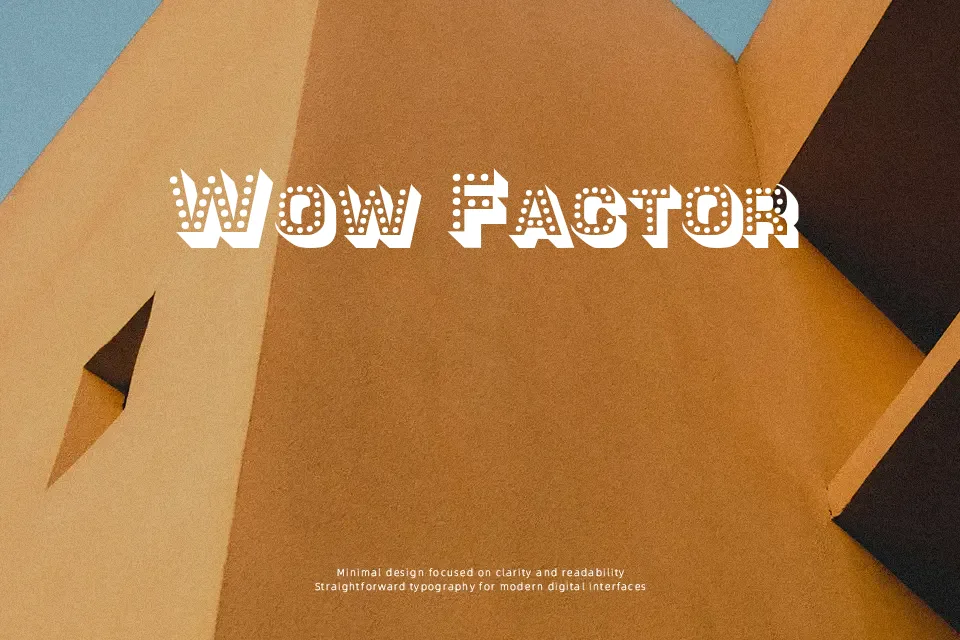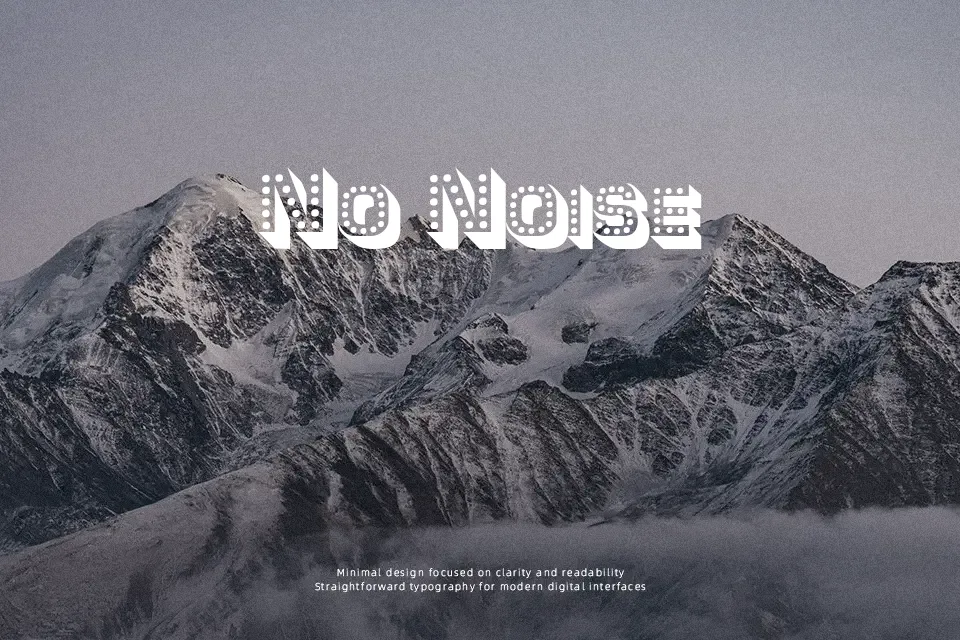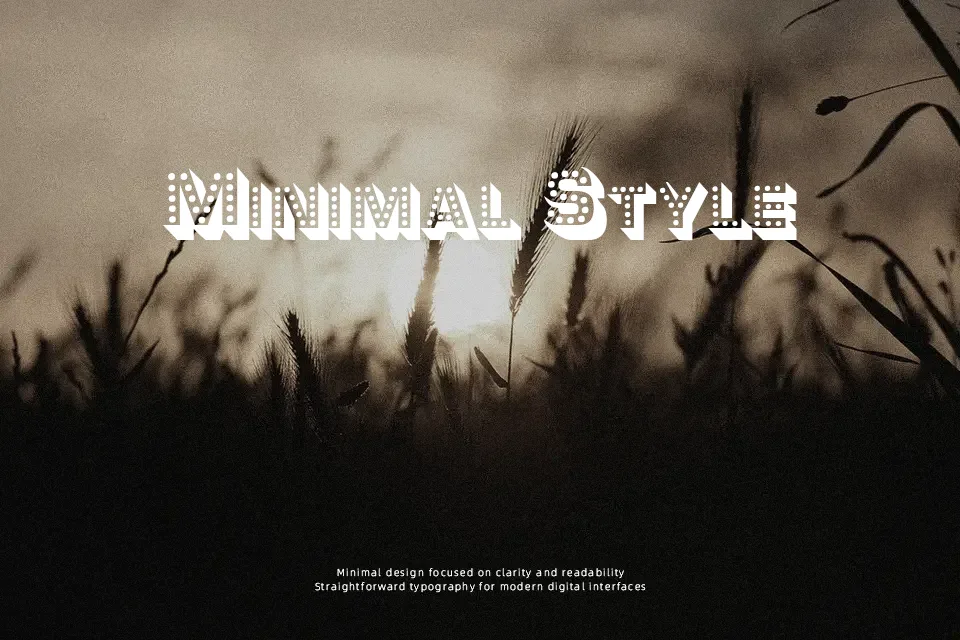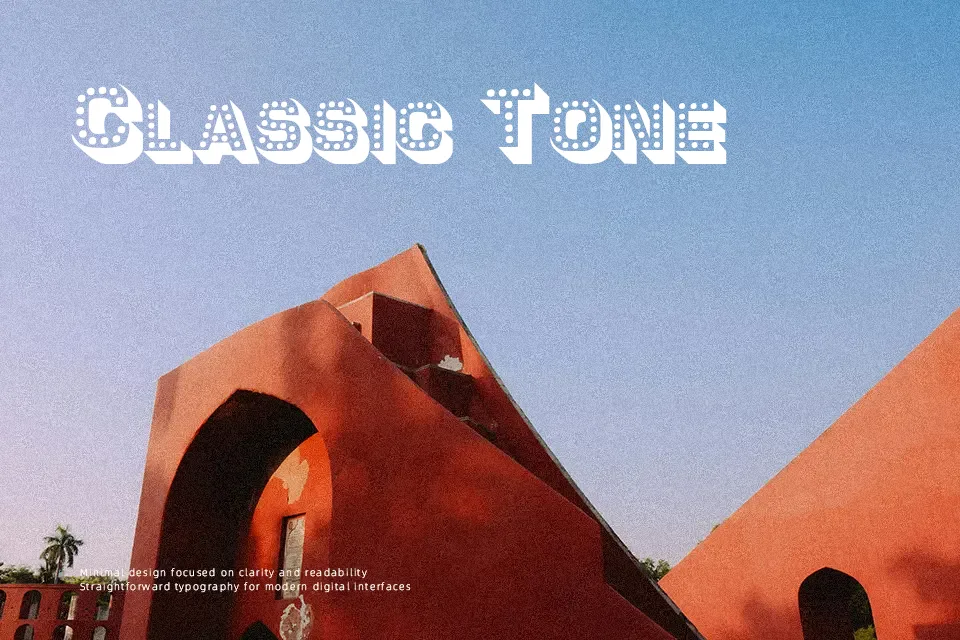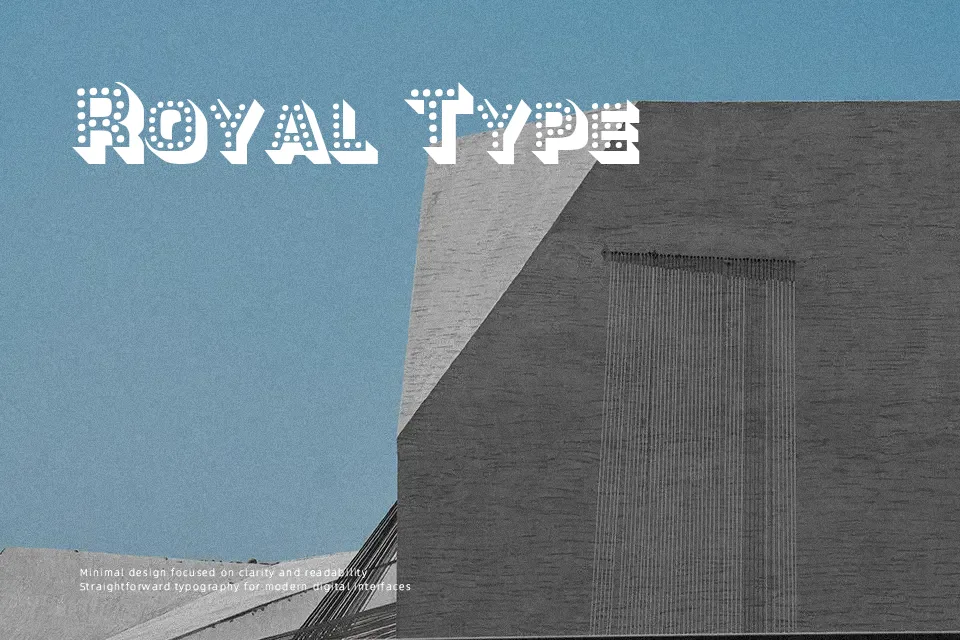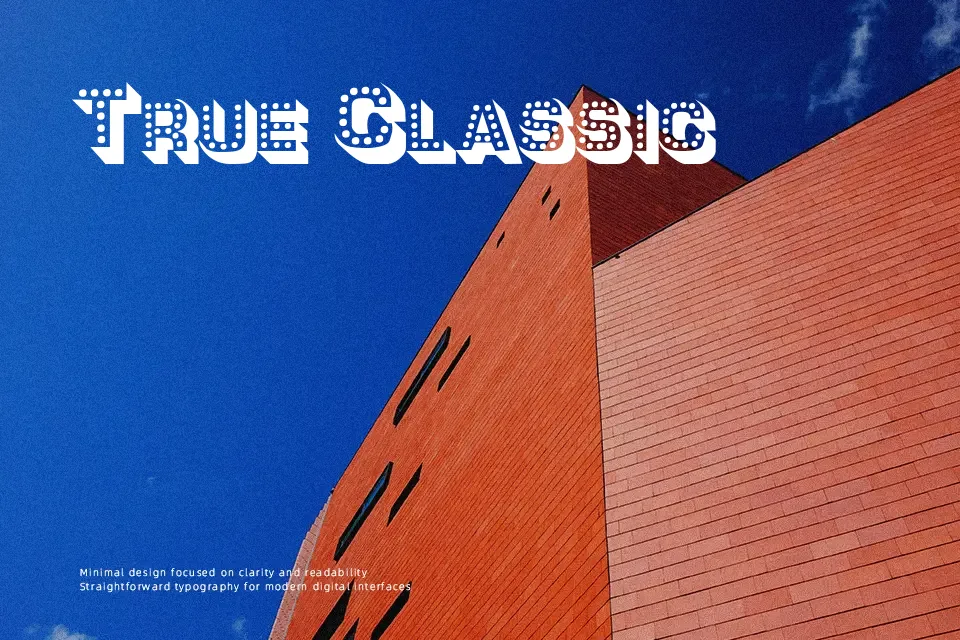
Tonight Font
Designed by Dieter Steffmann
Tonight Font is built upon heavy, squarish letterforms with thick uniform strokes and centered circular bulb perforations reminiscent of classic carnival marquees. Extended horizontal proportions and consistent baseline alignment give the design an architectural presence, while open character spacing keeps adjacent glyphs visually detached. The internal dot pattern maintains distinct legibility in oversized display applications, making the typeface an effective option for vintage music festival banners, retro gaming titles, and broadcast title cards. Because the dense contours and enclosed negative spaces become congested as scale decreases, the font remains impractical for extended editorial passages, small captions, or compact data tables.
Best For: vintage arcade cabinets, carnival event posters, retro theater marquees, broadcast title cards
Not Ideal For: long paragraph text, mobile interface captions, technical documentation, dense editorial layouts
Perfect for advertising, film, and headline, with a bold and decorative style.